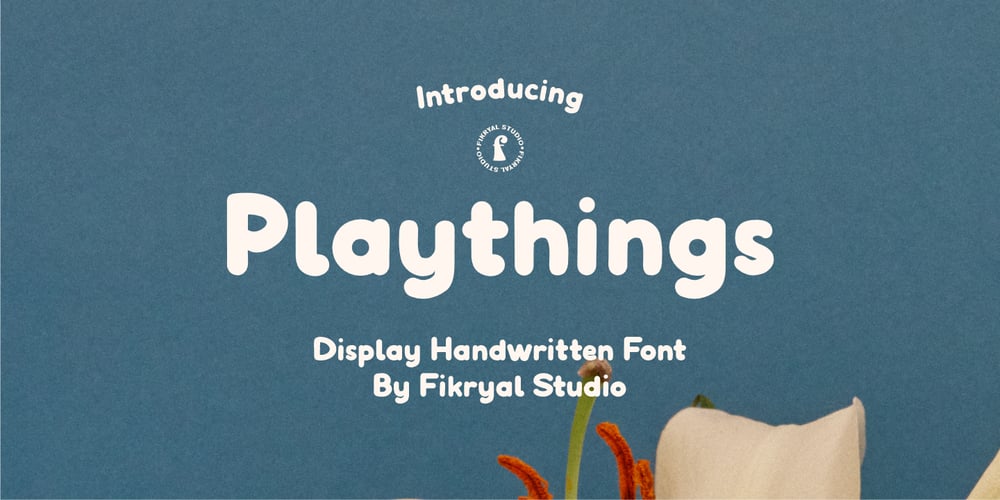
Playthings
Playthings font
Playthings Font Family was designed by Muhammad Fikry and published by Fikryal. Playthings contains 1 styles and family package options. Playthings Handwritten Display Font is a type of font designed by hand to provide a unique and personal touch to your design projects. With its cheerful and gentle handwriting style, this font brings about a relaxed yet captivating ambiance, making it suitable for various creative endeavors.With its soft line details and natural characteristics, the Playthings Handwritten Display Font exudes warmth and familiarity.